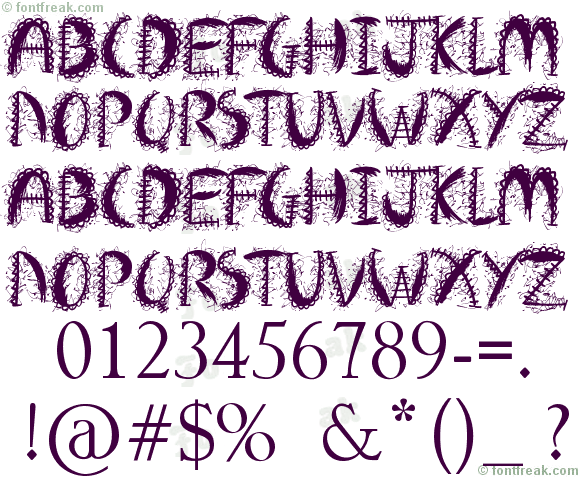
Crazy Weekend
The Crazy Weekend font by Jonathan S. Harris is a captivating display font that exudes an energetic and whimsical vibe. As a decorative typeface, it features playful, exaggerated forms that create a sense of spontaneity and fun. The strokes are uneven and dynamic, which adds a unique character to each letter. With its bold and thick strokes, combined with intricate, swirling embellishments, the font captures the essence of a carefree weekend, perfect for those looking to make a statement.
The visual characteristics of the Crazy Weekend font include a high contrast in stroke weight, where some lines are thick and bold while others are finer, creating an engaging rhythm. The spacing between the letters is relatively tight, enhancing the font's lively appearance. Decorative elements are prominent, with artistic flourishes that give the letters an organic, almost hand-drawn quality. This makes the font particularly appealing for creative projects that seek to convey a sense of fun and individuality.
Ideal use cases for the Crazy Weekend font include vibrant wedding invitations that aim to set a joyful tone, eye-catching movie posters that grab attention, lively restaurant menus that reflect a casual atmosphere, and event flyers that need to stand out in a crowded space. The target audience encompasses graphic designers, small business owners, and content creators who want to inject a dose of personality into their work.
What makes the Crazy Weekend font truly stand out is its ability to evoke a sense of excitement and creativity. Its unique style makes it an excellent choice for projects that require a playful and unconventional touch. For those interested in incorporating this lively font into their designs, a Crazy Weekend font free download is available, allowing you to unleash your creativity without any licensing concerns.